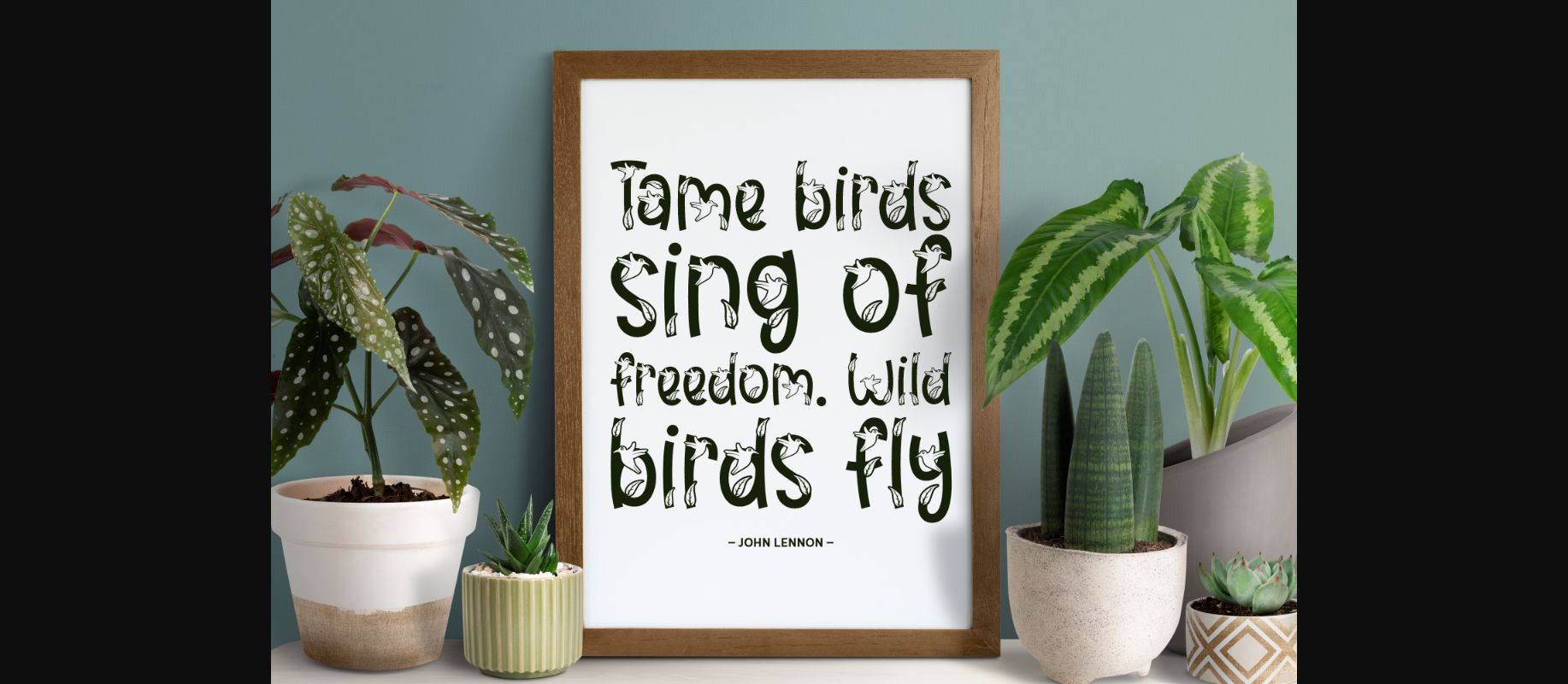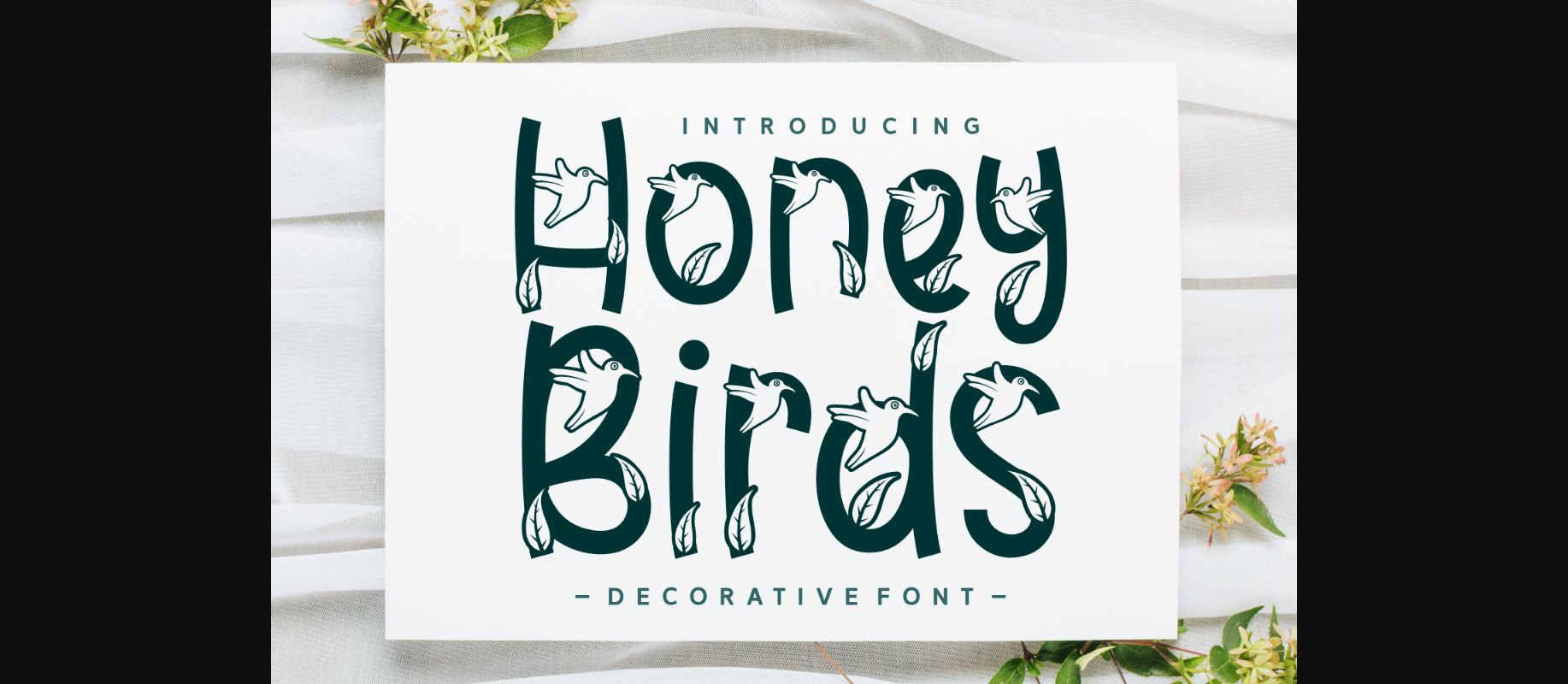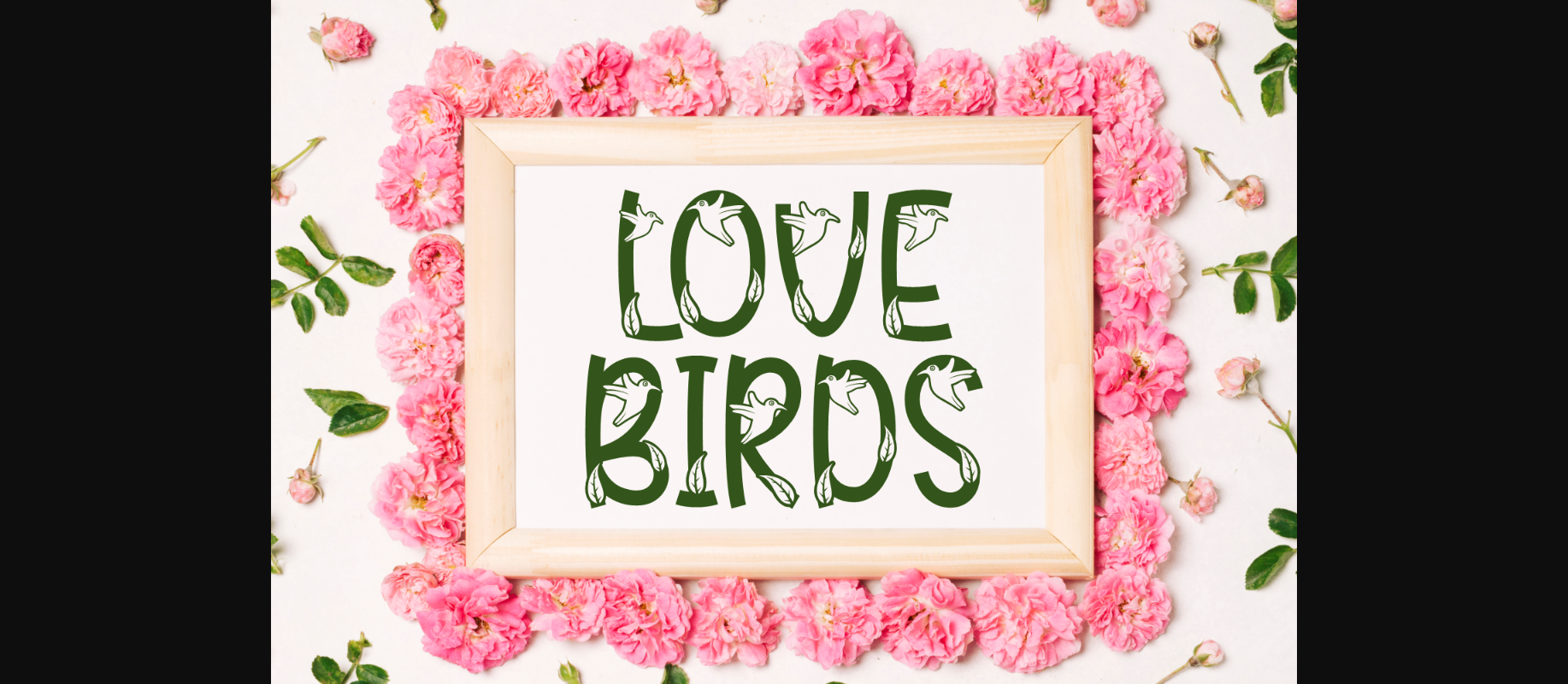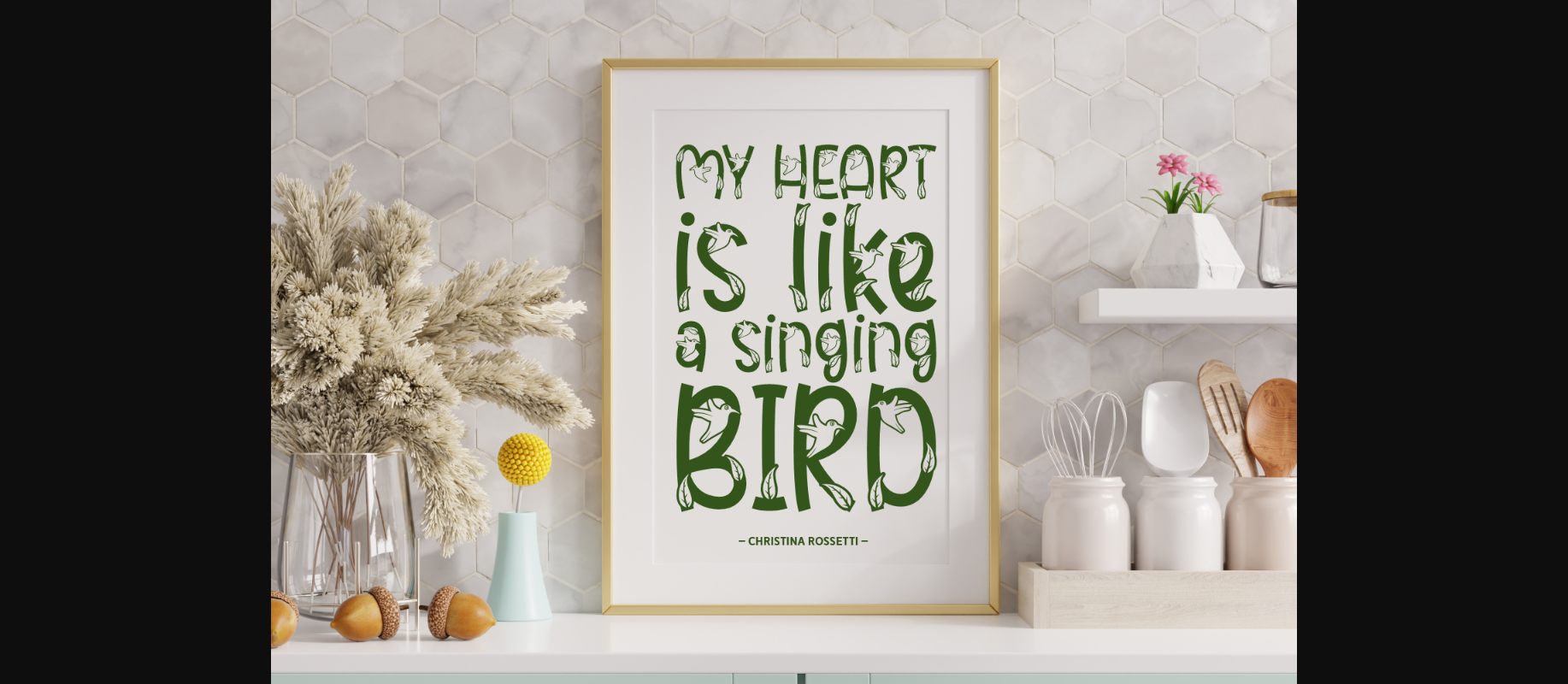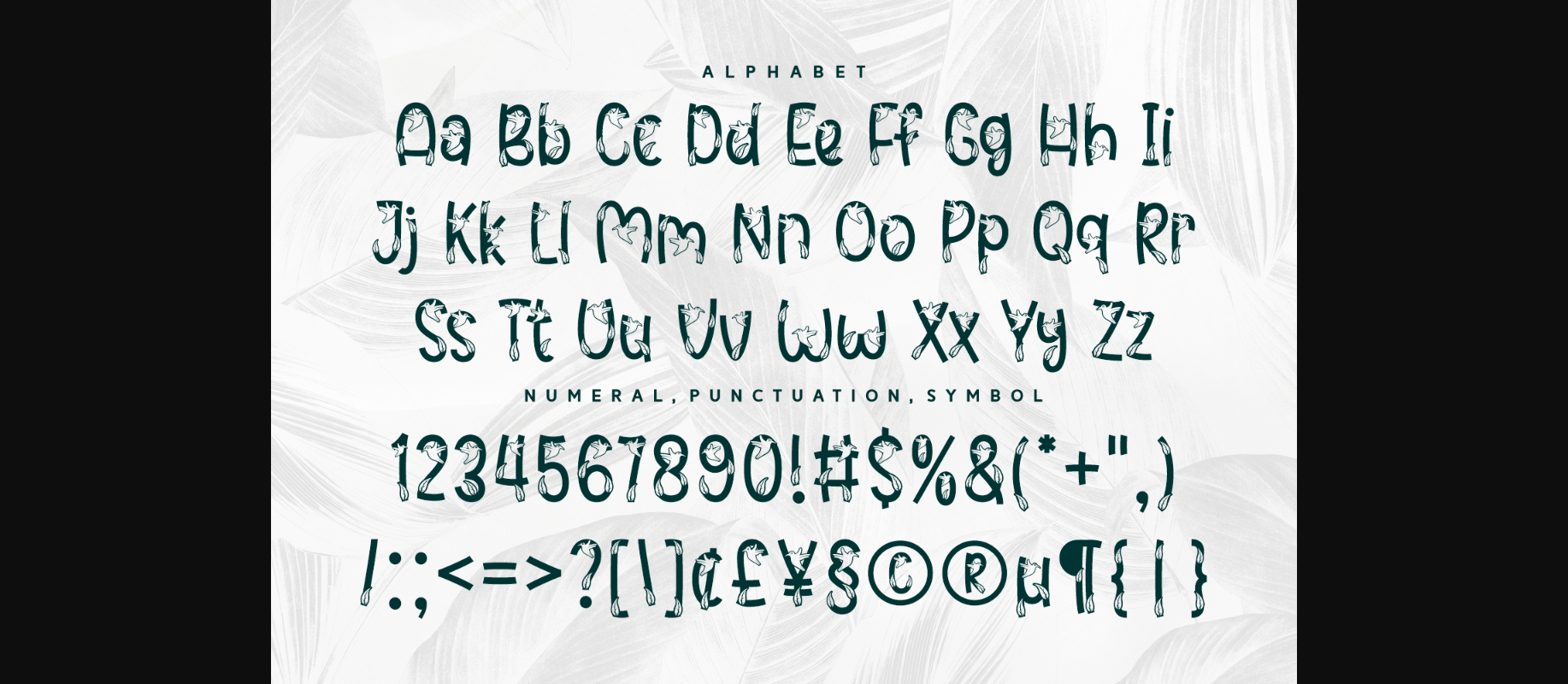
About Honey Birds Font
Honey Birds is a charming bird-themed decorative font. Get inspired by the look of this fun and creative typeface and use it in your upcoming project! It looks nice on posters, flyers, t-shirts, quotes, and many more.